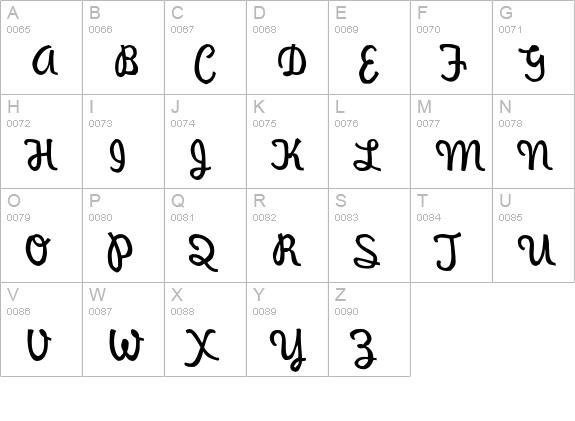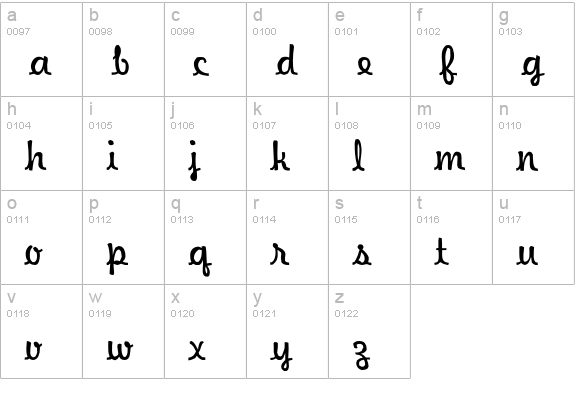
WaveeWeekend-OriginalPrototype Font Details
Introducing WaveeWeekend-OriginalPrototype font, the perfect blend of modernity and creativity. This one-of-a-kind typeface is designed to make your designs stand out in a sea of ordinary fonts. With its unique and playful design, WaveeWeekend-OriginalPrototype font brings a refreshing wave of inspiration to your projects. Featuring bold and fluid letterforms, this font is sure to make a lasting impression. Its smooth curves and dynamic lines add a touch of energy and liveliness to any design. Whether you're working on a logo, branding materials, posters, or even social media graphics, WaveeWeekend-OriginalPrototype font will elevate your creations to new heights. What sets WaveeWeekend-OriginalPrototype font apart is not only its remarkable aesthetics but also its accessibility. We believe that creativity should be free, and that's why this font is freely available to download at FontsMarket.com. It's a font that doesn't limit your creative potential, allowing you to explore and experiment without any restrictions. Whether you're a professional designer or a typography enthusiast, WaveeWeekend-OriginalPrototype font offers endless possibilities. Its versatility allows it to adapt to various design styles, making it suitable for a wide range of projects. From playful and whimsical designs to sleek and modern compositions, this font will effortlessly enhance your work. With its wide range of characters and extensive language support, WaveeWeekend-OriginalPrototype font ensures that your message is delivered with clarity and impact. Its legibility ensures that your audience can easily engage with your content, while its unique personality adds a touch of originality to every composition. So why wait? Elevate your designs with the captivating and freely available WaveeWeekend-OriginalPrototype font. Download it now from FontsMarket.com and embark on a journey of endless creativity. Let your imagination run wild and watch as your designs come to life with this remarkable and versatile font.